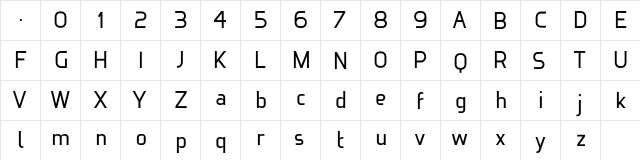
ideoma TECHNIT Regular
Design Context for ideoma TECHNIT Typeface
ideoma TECHNIT has a distinctly futuristic character, with geometric precision and clean angles that feel at home in technology, gaming, and sci-fi contexts.
Pro Tip: Try ideoma TECHNIT with generous letter-spacing in UI labels and navigation — the geometric forms benefit from room to breathe.